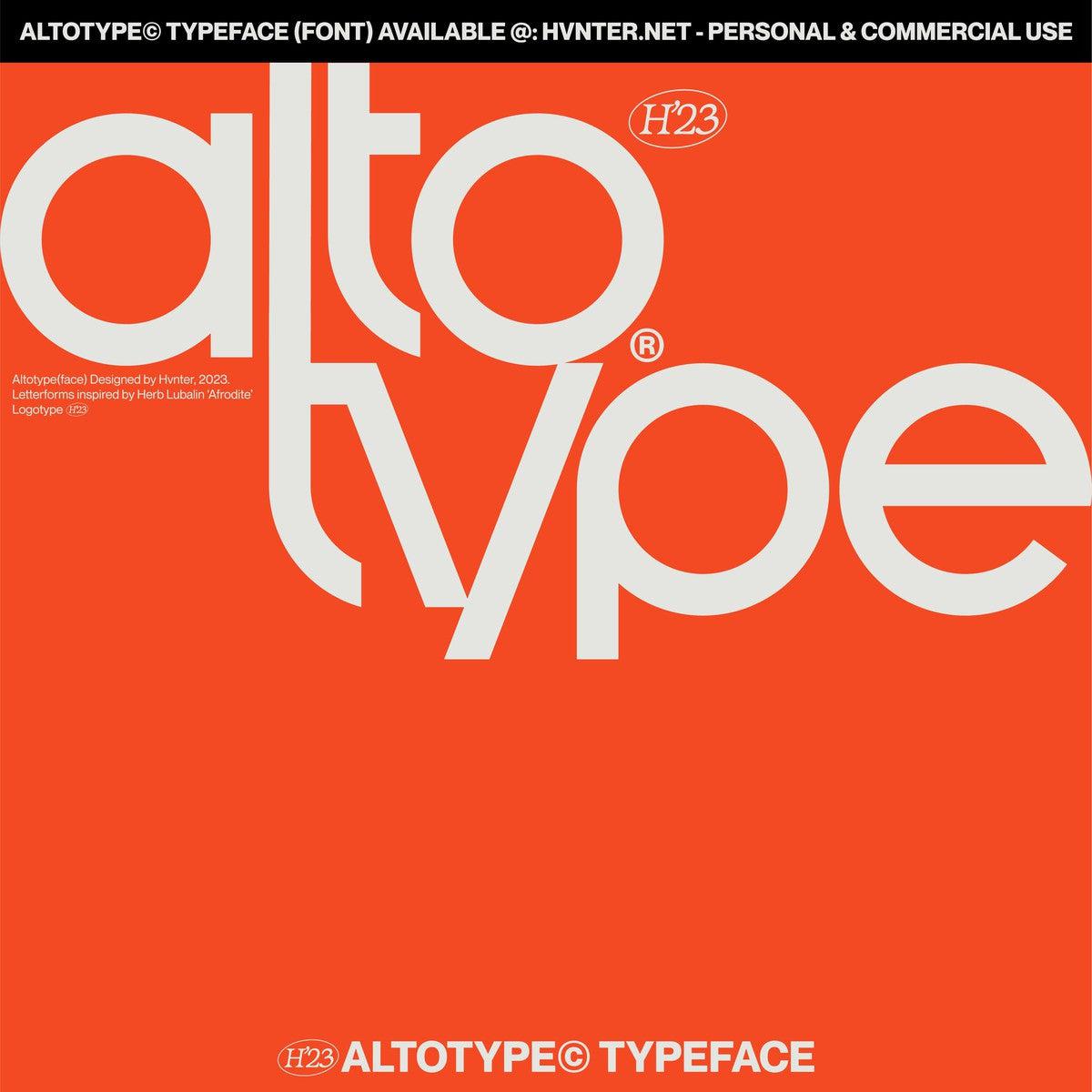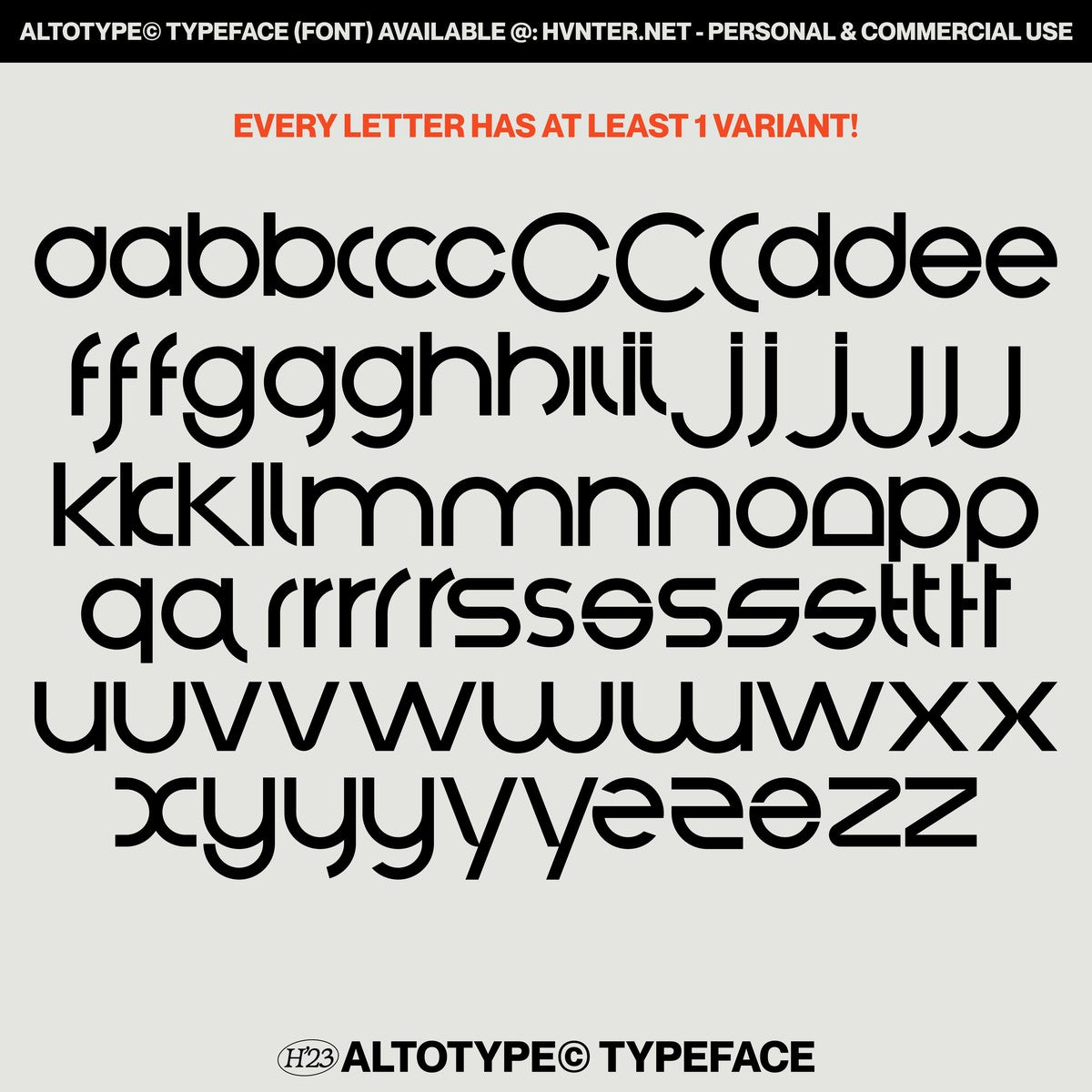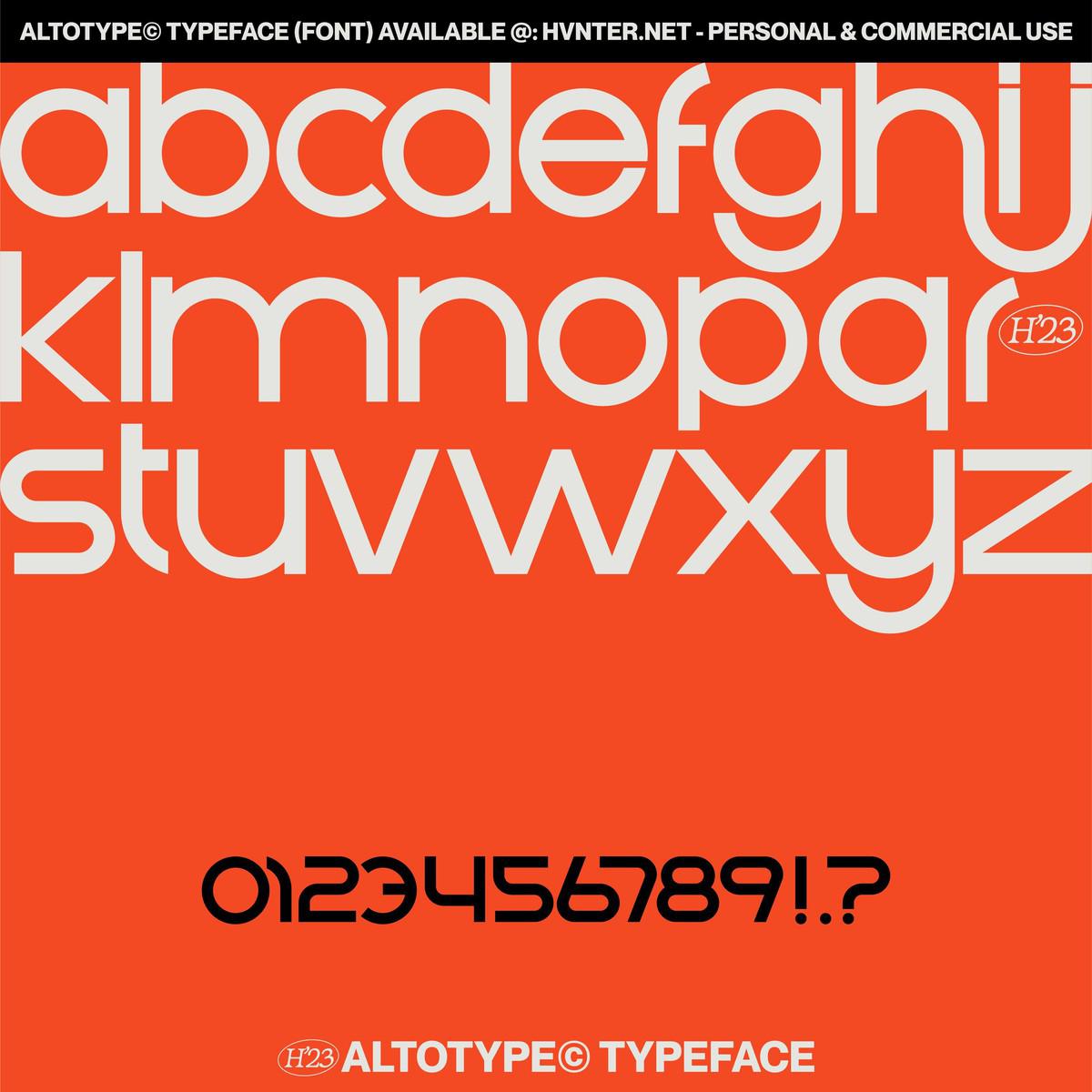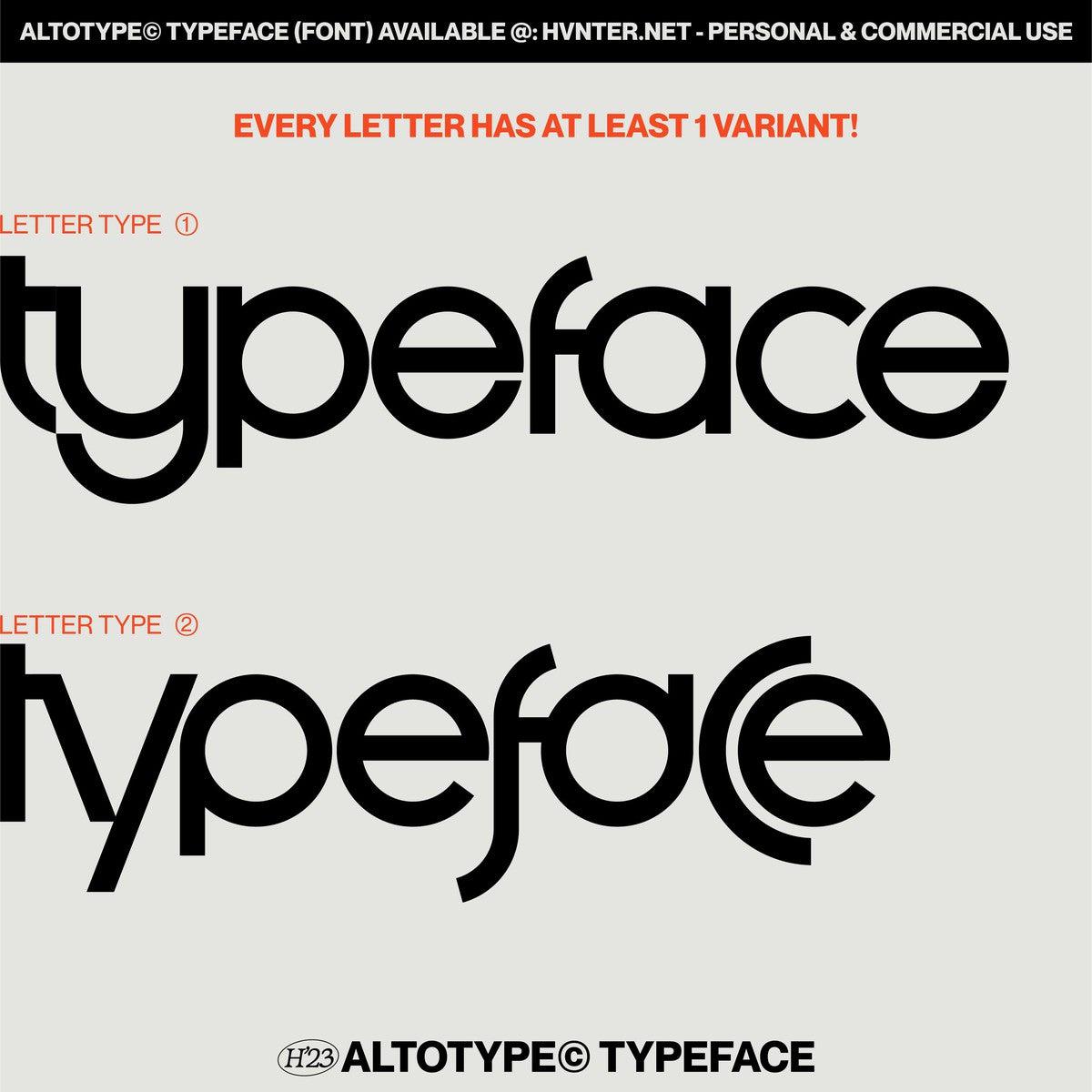
Altotype Typeface
The Altotype Typeface is a .otf font file that includes A-Z, 0-9, and basic symbols. It is a retro, sans serif typeface that can be used for logos and displays.